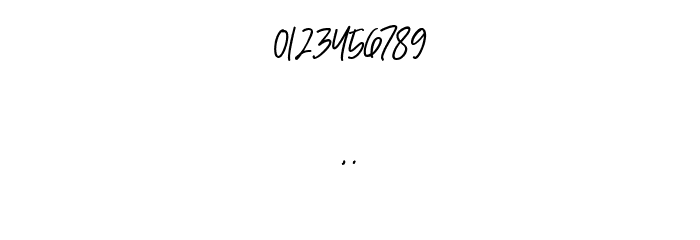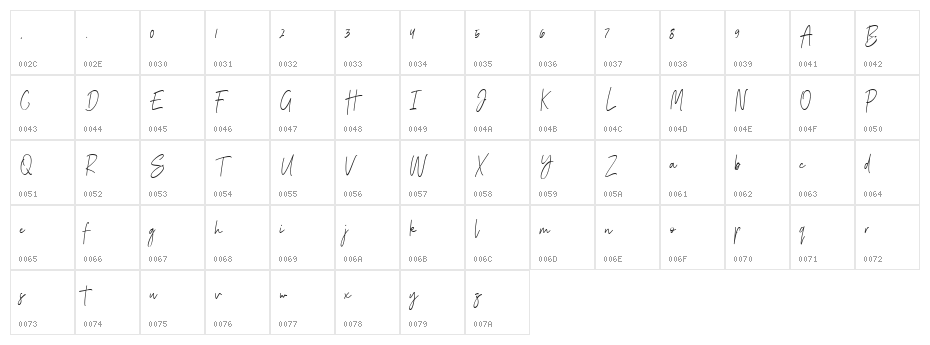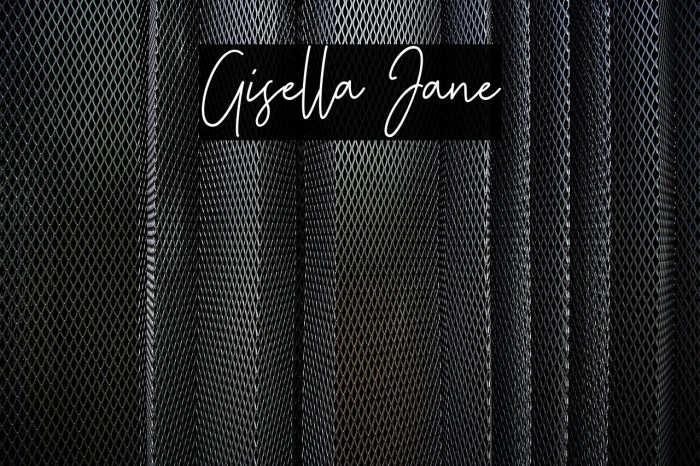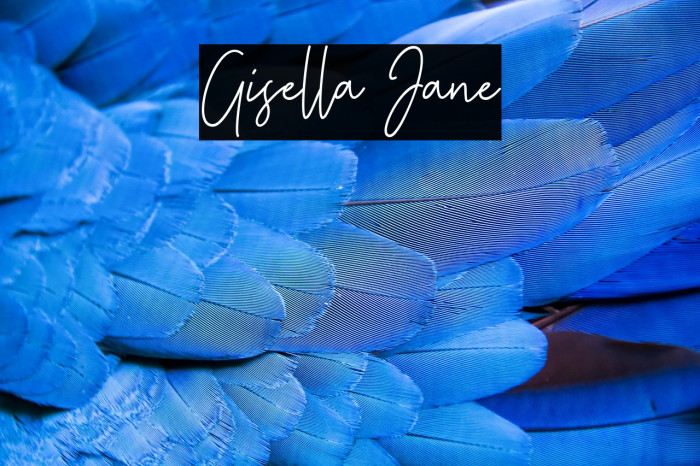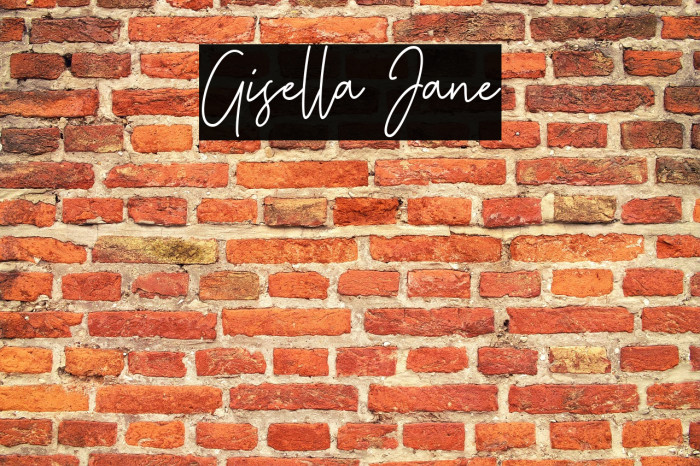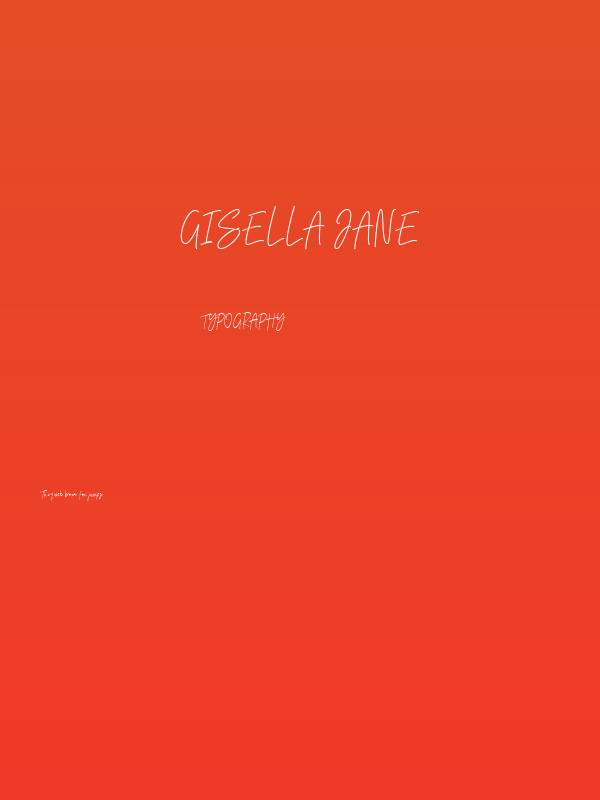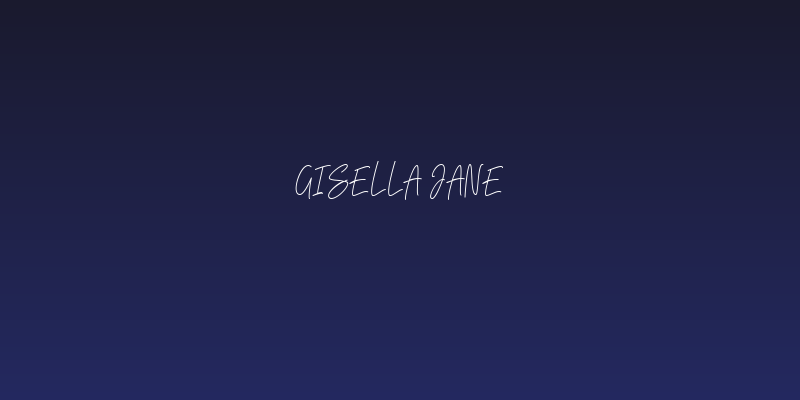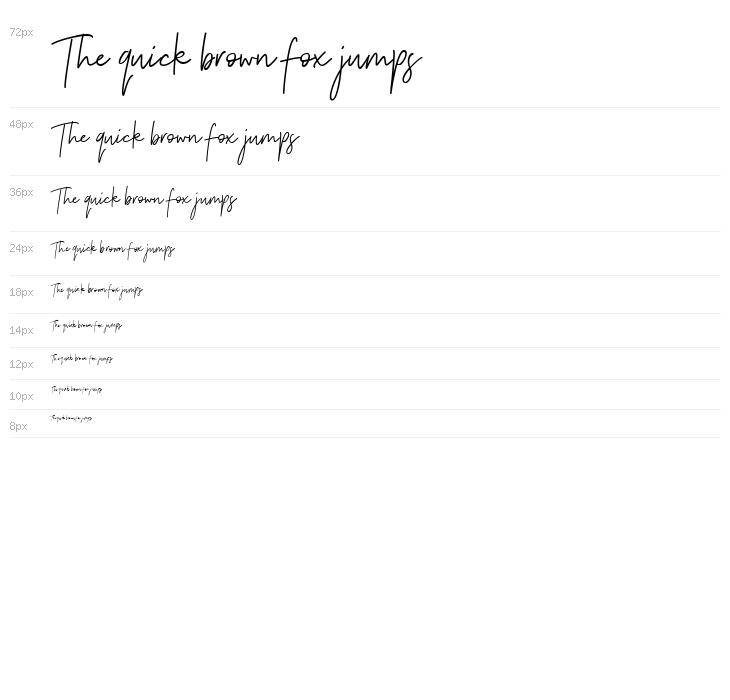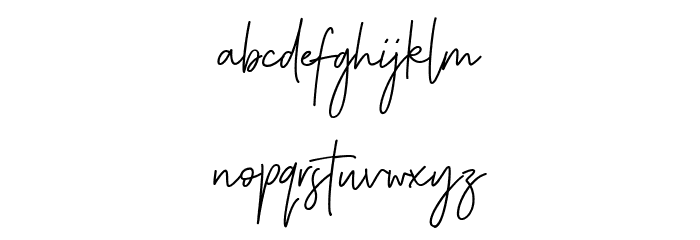
Gisella Jane Font
Gisella Jane Description
This font features a delicate and flowing handwritten style, characterized by its elegant and fluid strokes. The letters are slightly slanted, giving it a dynamic and lively appearance. The uppercase letters are tall and slender, while the lowercase letters maintain a consistent flow with subtle variations in height. The numerals are clear and maintain the same graceful style as the letters. This font exudes a sense of sophistication and personal touch, making it ideal for projects that require a humanistic and approachable feel.
| Overall Style | Elegant, Personal, Sophisticated |
| Use Case | Logos, Invitations, Personal Branding |
| Proposed Projects | Ideal for wedding invitations, personal branding, greeting cards, and elegant logo designs. |